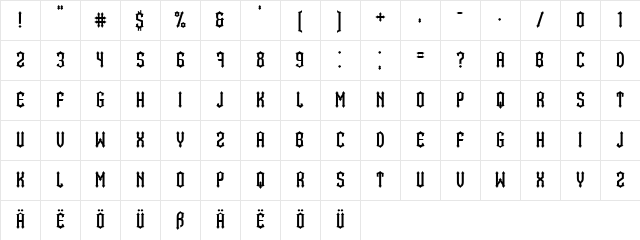
Bramble Princess Condensed Free Font
Bramble Princess Condensed
Design Context for Bramble Princess
Bramble Princess is a composed and adaptable typeface that performs quietly and consistently across a wide range of design contexts. Its narrow stance lets it pack a punch even in space-constrained designs.